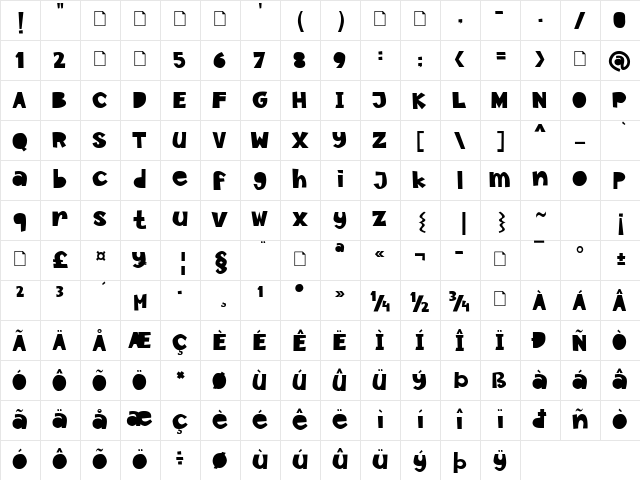
Paper Cutz Regular
| Designer | Kurnia Setyadi |
Design Context for Paper Cutz Typeface
Paper Cutz is a composed and adaptable typeface that performs quietly and consistently across a wide range of design contexts.